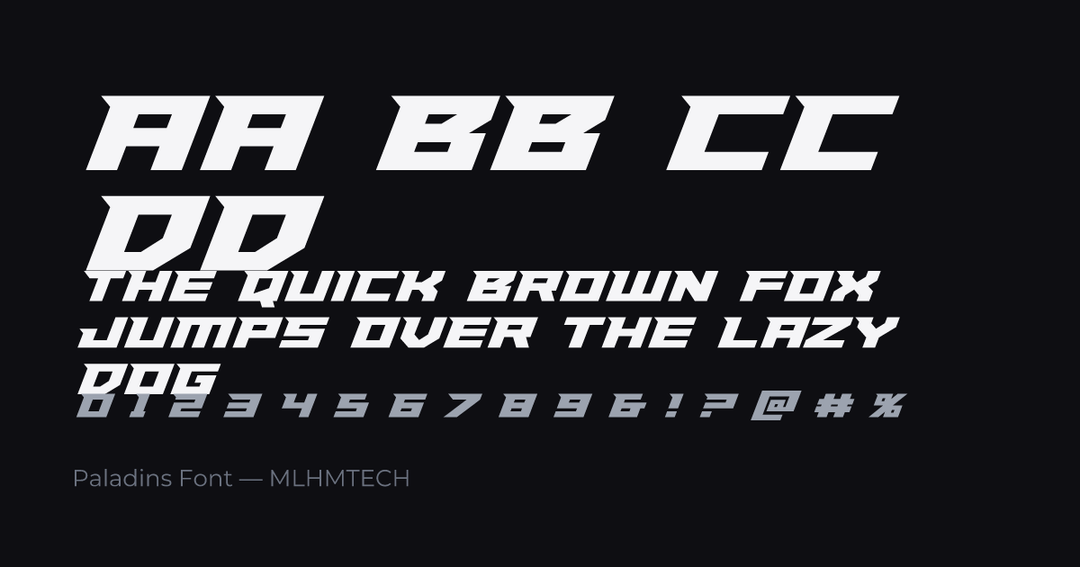
Paladins Font
A bold, fantasy-inspired font reminiscent of the Paladins game, ideal for gaming logos, titles, and esports graphics.
This font, named 'Paladins', is a display typeface with a strong, medieval fantasy aesthetic. Its sharp edges and sturdy letterforms evoke the look of the popular hero shooter game, making it perfect for gaming-related projects, fantasy themes, and bold headlines.